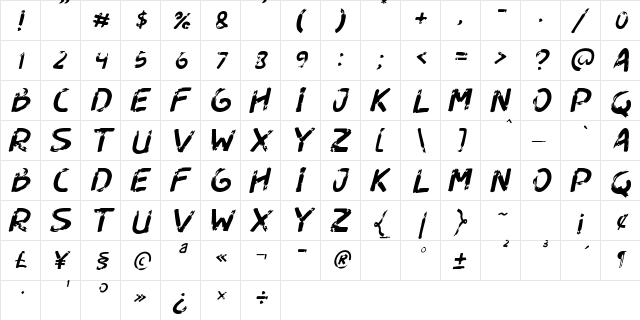
Dogfight Italic
| Designer | doliharahap 2019 |
Design Context for Dogfight Typeface
Dogfight is a composed and adaptable typeface that performs quietly and consistently across a wide range of design contexts. The slanted form adds forward momentum and visual energy.
Pro Tip: Use Dogfight for emphasis, pull quotes, and subheadings where its slanted energy can add rhythm to the layout.